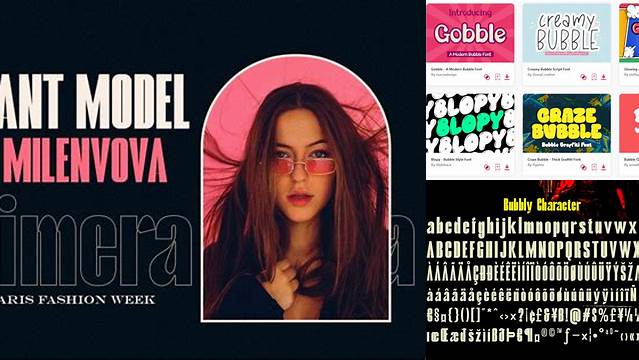
Bubbly Fonts: 1001 Fonts, HTML & Website Design
Hey guys! Ever wanted to add a touch of fun, playfulness, and sheer joy to your website or design projects? Well, buckle up, because we're diving headfirst into the world of bubbly fonts! And what better place to start than with the amazing resources at 1001 Fonts, and how to implement these charming fonts using HTML? This guide is your one-stop shop for everything you need to know about finding, using, and absolutely rocking those adorable bubble-style fonts. We'll cover where to find the best fonts, how to make them work on your website with HTML, and some awesome tips to make your designs pop. So, let's get started, shall we?
What are Bubbly Fonts and Why Use Them?
Okay, first things first: what exactly are bubbly fonts? These are fonts that typically feature rounded, soft, and often slightly inflated letterforms, giving off a sense of airiness and a lighthearted vibe. Think of those fonts that look like they're filled with, well, bubbles! They're perfect for projects where you want to convey a feeling of fun, friendliness, approachability, and a touch of whimsy. They're like the visual equivalent of a giggle.
Why use them? Because they work! They can significantly enhance the appeal of your designs. They're especially great for projects aimed at children, or those with a youthful target audience, or even for adding a touch of lightheartedness to more serious content. Imagine a website for a toy store, a children's book cover, or even a fun-loving blog – bubbly fonts are a fantastic choice! They instantly grab attention and communicate a message of playfulness and warmth. They’re the visual equivalent of a warm hug. They’re also a brilliant way to stand out from the crowd. In a world of sleek sans-serifs, a bubbly font is a breath of fresh air. This is especially true when you use them in a way that harmonizes with your overall design. They’re not always the right choice, but when they are, they're magical.
Here's a quick rundown of some of the main benefits:
- Attractiveness: They're visually appealing and grab your eye.
- Approachability: They make your content seem friendly and inviting.
- Versatility: They work well in a variety of contexts, from websites to print materials.
- Memorability: They help your brand or project stand out.
So, whether you're a seasoned web designer, a budding graphic artist, or just someone who loves playing around with fonts, bubbly fonts are a powerful tool to have in your design arsenal.
Finding Your Perfect Bubbly Fonts on 1001 Fonts
Alright, now for the fun part: finding those gorgeous bubbly fonts! 1001 Fonts is a treasure trove of fonts, and a fantastic place to start your search. This site has a massive collection of fonts, including a fantastic selection of bubbly styles. Navigating 1001 Fonts is super easy.
Here's a step-by-step guide to finding the perfect bubbly fonts:
- Explore Categories: They usually have font categories. Look for categories like "Rounded," "Cartoon," "Kids," or simply browse the new font section. These are excellent places to start your search for bubbly fonts.
- Use the Search Bar: If you have a specific word in mind (like "bubble" or "balloon"), simply type it into the search bar. This is a quick way to find fonts that match your ideas.
- Preview and Test: Once you find a font you like, make sure to preview it. Most sites allow you to type in your text and see how it looks in that font. This is crucial! Different fonts have different personalities, so make sure it fits your project's tone.
Implementing Bubbly Fonts on Your Website Using HTML and CSS
So, you've found the perfect bubbly fonts – awesome! Now, how do you get them onto your website? Don't worry, it's easier than you think! We'll cover both the basics of how to do this, and then offer a few tips that will help you make sure things go smoothly.
First, you'll need to obtain the font files. Usually, you'll download them from 1001 Fonts. These files will usually be in either .ttf
(TrueType Font) or .otf
(OpenType Font) format. Now you will need to host the fonts on your server or use a service that hosts fonts (like Google Fonts or Adobe Fonts). Hosting it yourself gives you the most control, but using a service is often easier.
Here's how you can implement those awesome fonts on your website:
Hosting your font (or choosing a font-hosting service): If you're hosting the fonts yourself, upload the font files to a folder on your website's server. If you're using a font-hosting service, you'll usually get a code snippet to include in your HTML. This is the easiest way to implement fonts into your site. It’s as simple as copy and pasting a line of code.